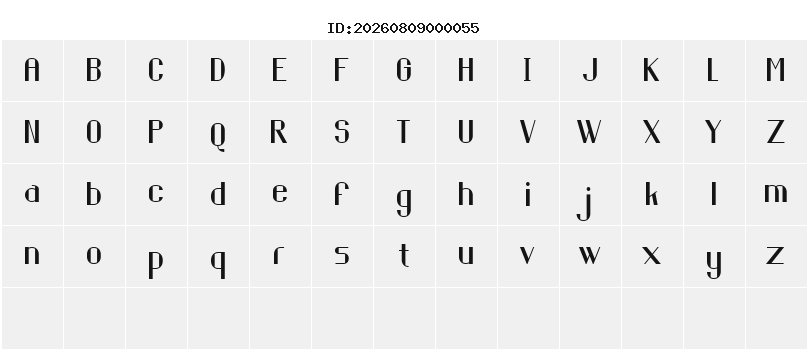
• Font Name: Piring Hitam
• Designer: cenz qobbal
Piring Hitam.ttf is a modern, elegant sans-serif font designed for ultimate readability and visual harmony. Perfect for branding, headlines, web design, and print materials.